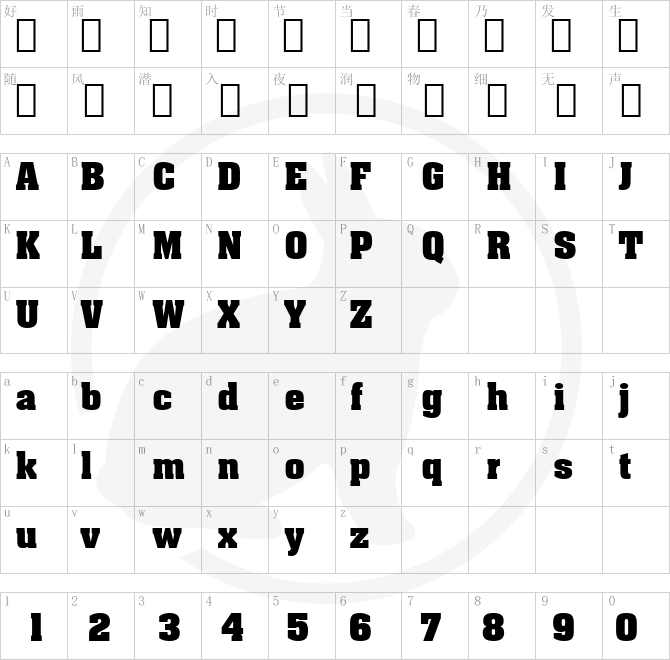
- Font Name:002-CAI978
002-CAI978.ttf is a very beautiful artistic font, 002-CAI978.ttf is widely used in the design and printing of various books and pictures,002-CAI978.ttf has a strong visual impact,002-CAI978.ttf is a commonly used font in newspapers, magazines and books, and is used in posters, e-commerce Poster design, store design, logo design, font design and other fields.002-CAI978.